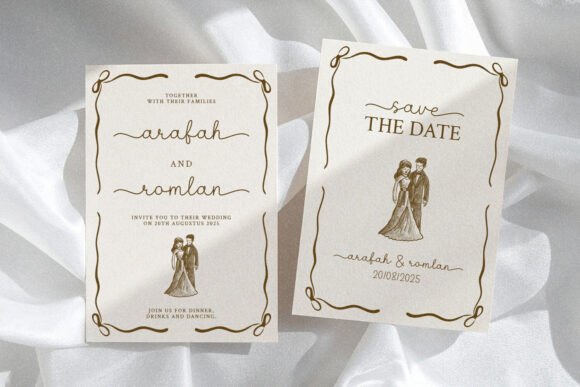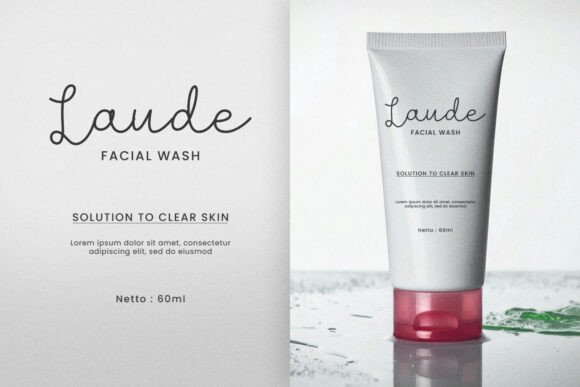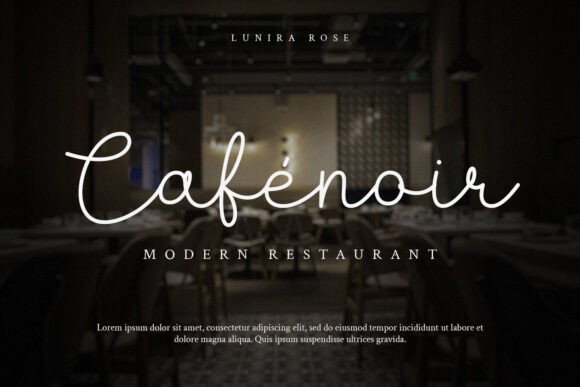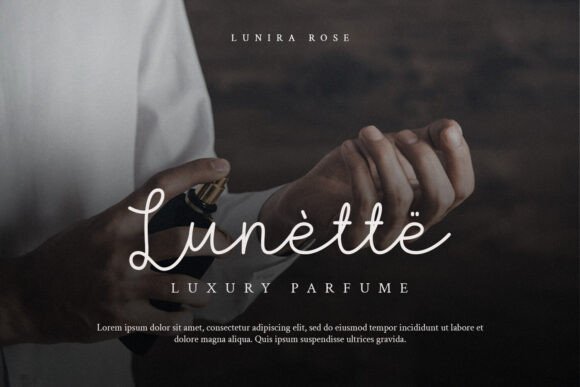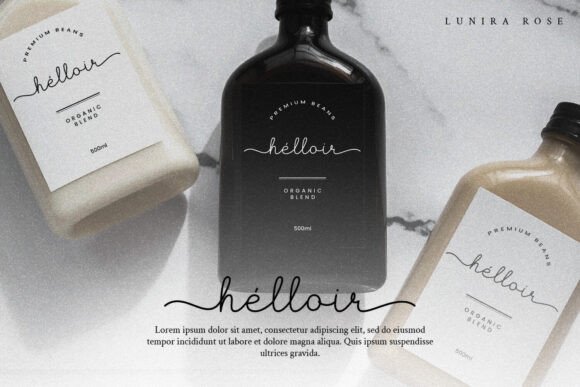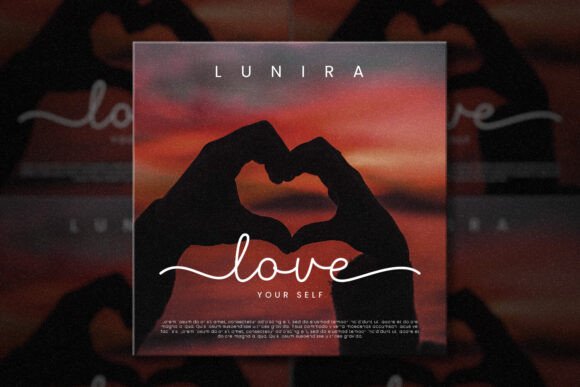
Introduction to Lunira Rose Font Font
Fonts play a crucial role in design, and the Lunira Rose Font font is a typeface that brings both character and versatility to any project. Whether you’re working on a branding project, a website, or a print design, the Lunira Rose Font font offers a unique style that can elevate your work.
Lunira Rose is a charming handwritten font that brings warmth and personality into your design.
Its smooth curves and gentle strokes make it perfect for anything that needs a soft, personal touch Whether youβre designing invitations, quotes, branding, or greeting cards, Lunira Rose adds a lovely handmade feel.
Key Features of Lunira Rose Font Font
Why Choose Lunira Rose Font Font?
The Lunira Rose Font font is more than just a typeface β it’s a design tool that helps you communicate your message with style and clarity. Its unique character set and versatile design make it suitable for a wide range of applications, from elegant invitations to bold headlines.
With its carefully crafted letterforms and balanced proportions, the Lunira Rose Font font ensures readability and visual appeal across all mediums.
What makes Lunira Rose Font font special?
The Lunira Rose Font font stands out with its unique design, exceptional readability, and versatility across various design applications.